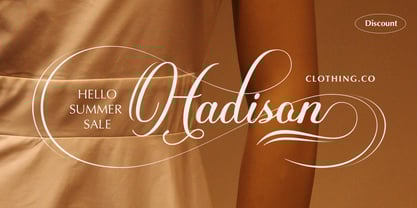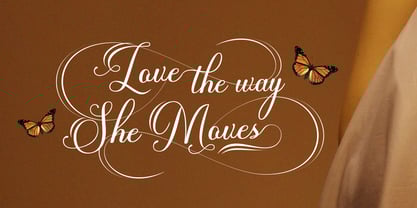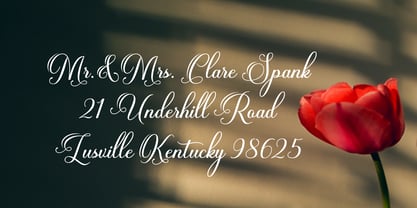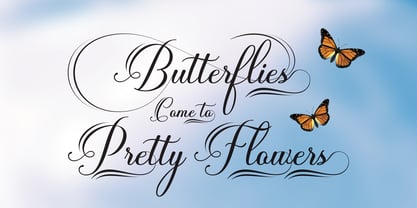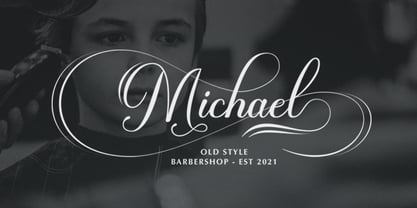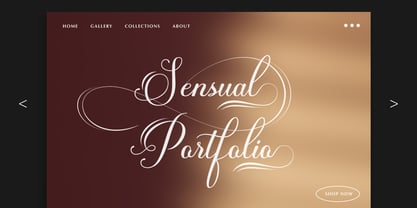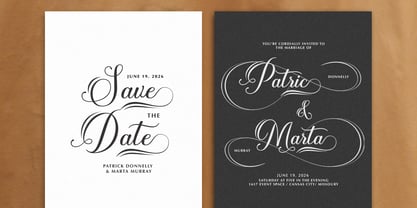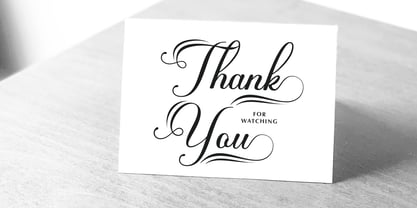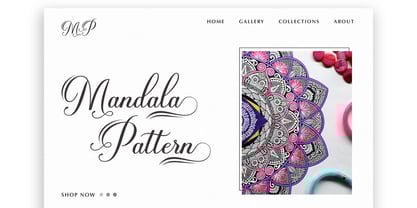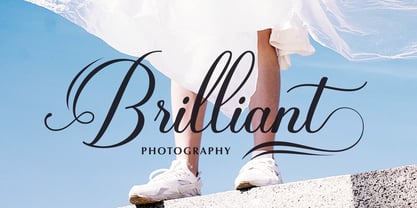
Mantirela Script
Die Schriftfamilie Mantirela Script wurde von entworfen und von NDN Studio veröffentlicht. Mantirela Script enthält 2 Stile und Familienpaketoptionen.
Introducing Mantirela — a luxurious script calligraphy font adorned with graceful swirl swashes that bring timeless elegance and romantic artistry to your typography. Inspired by the fluid motion of hand-lettered calligraphy, Mantirela combines classic penmanship with modern sophistication, resulting in a font that is both refined and expressive. Every letterform is carefully crafted to mimic the flow of ink on paper, with sweeping curves and soft, harmonious strokes that glide effortlessly across the page. What sets this typeface apart is its ornamental swirl swashes—flourished extensions that add a sense of grandeur and movement to each character. These swashes are perfect for adding dramatic flair to the beginning and end of words, transforming ordinary text into a visual statement. Mantirela includes a full set of uppercase and lowercase letters, alternates, ligatures, and beautifully intricate beginning and ending swashes, allowing for endless customization. Its high-contrast strokes and elegant rhythm make it ideal for use in wedding invitations, luxury branding, social media graphics, fashion editorials, packaging design, and more. This font supports multiple languages and is fully compatible with design software that supports OpenType features, making it both a beautiful and practical choice for professional designers and hobbyists alike.
Über NDN Studio
NDN Studio, typography is more than design—it's storytelling through form. Founded with a deep appreciation for letterforms, we are a type design studio committed to creating fonts that are both expressive and practical. Whether you're building a brand, designing packaging, or publishing editorial content, our fonts are made to elevate your message and leave a lasting impression. We specialize in elegant script and impactful display fonts, blending artistry with utility. Every typeface we release is handcrafted with precision, balancing aesthetics with functionality. Our work is guided by a strong belief: great typography doesn't just decorate—it communicates.